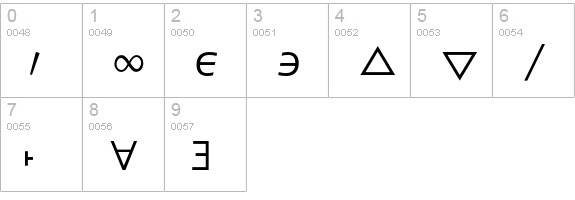
Lucida Math Symbol Font Details
Lucida Math Symbol font is a versatile and elegant typeface designed specifically for mathematical and scientific applications. With its clean lines and precise geometry, this font is perfect for representing complex mathematical equations and symbols with clarity and professionalism. The Lucida Math Symbol font is optimized for easy readability, making it an essential tool for researchers, educators, and students alike. And the best part is, Lucida Math Symbol font is completely free to download! You can get your hands on this exceptional font at FontsMarket.com, where it is available for instant download. Don't miss out on the opportunity to enhance your mathematical and scientific documents with the beautiful Lucida Math Symbol font today!